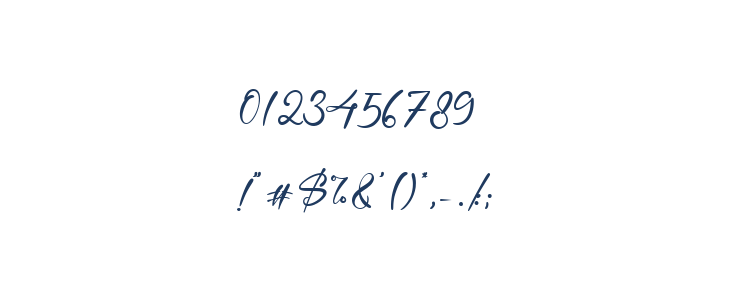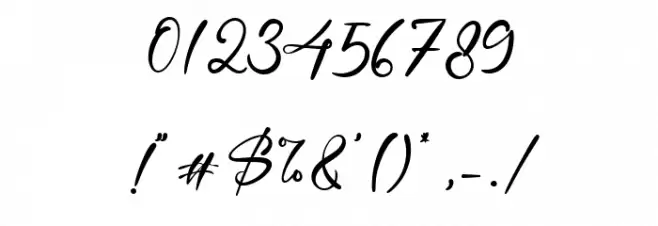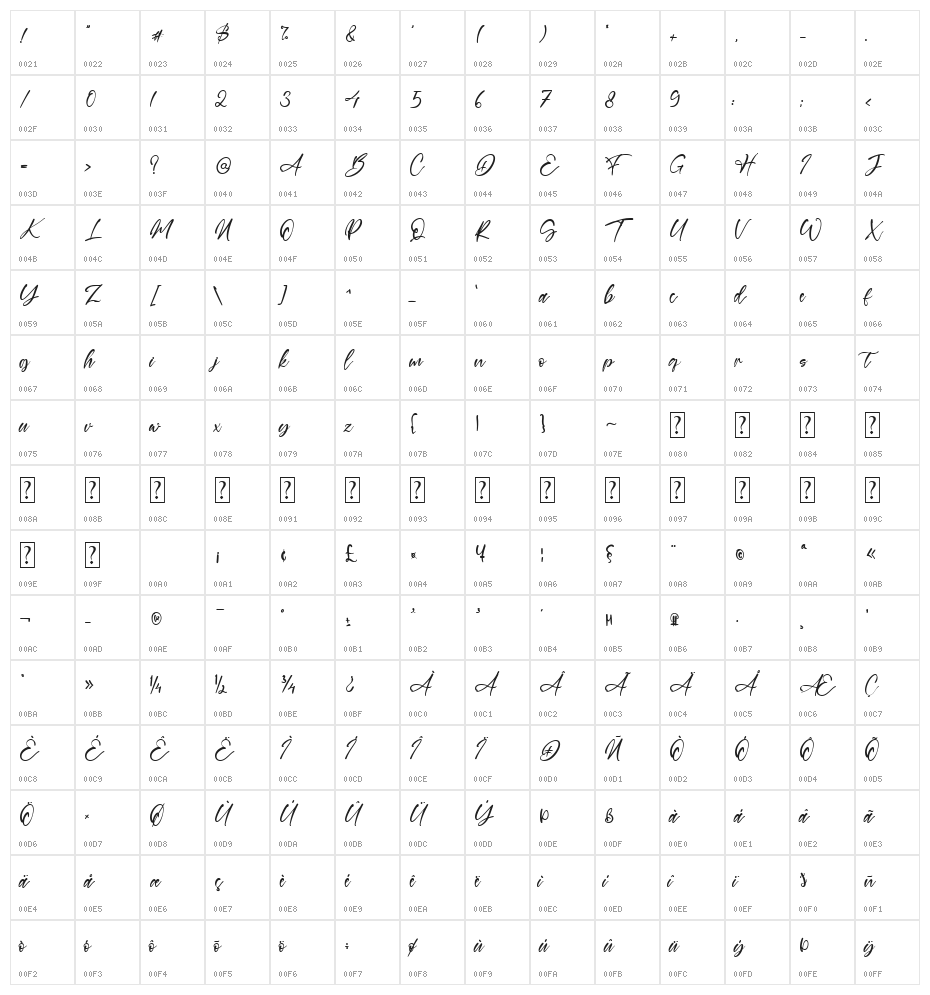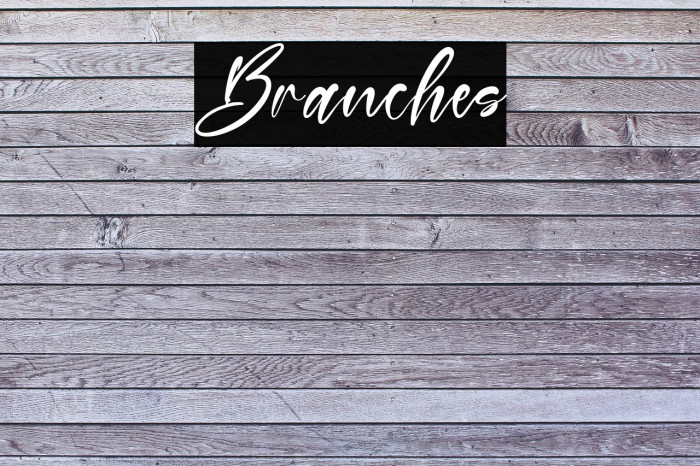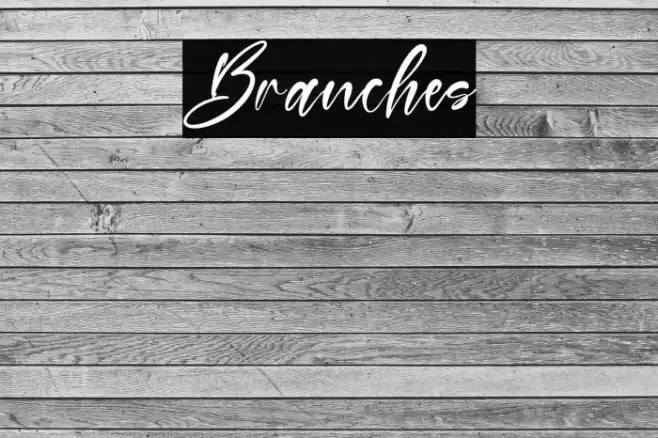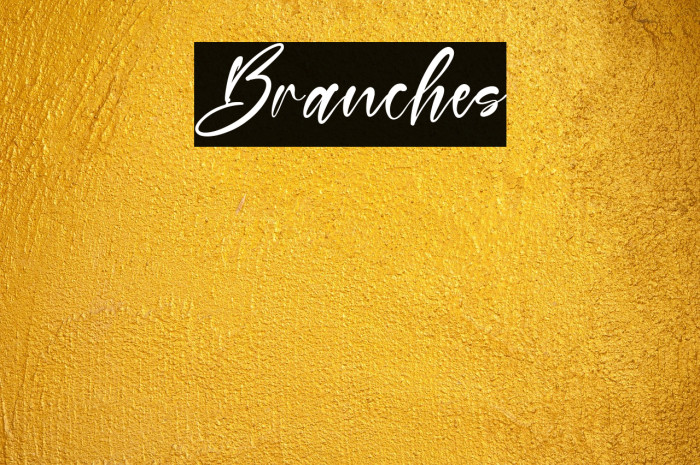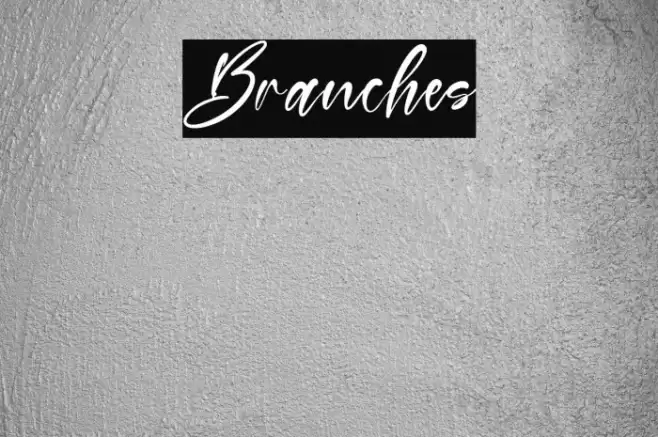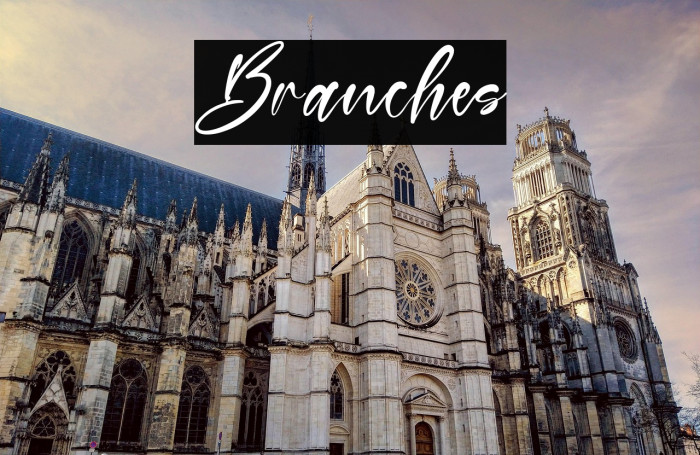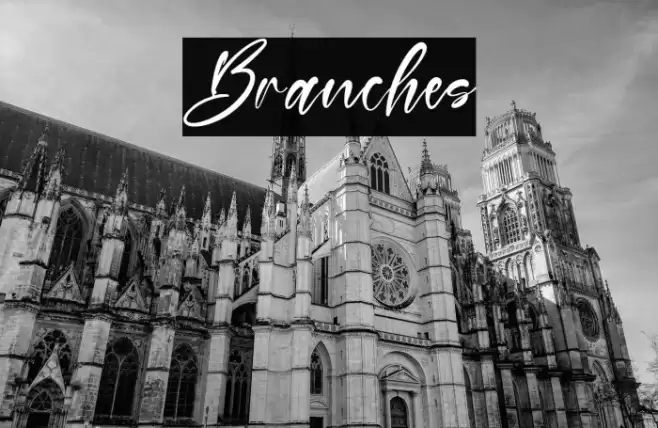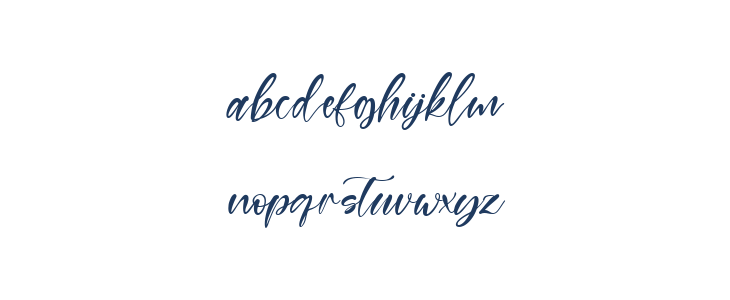
Branches Font
Branches Description
This font features a flowing, cursive style with elegant, sweeping strokes that give it a sophisticated and artistic appearance. The uppercase letters are bold and dynamic, with a slight slant that adds to the fluidity of the design. The lowercase letters maintain the same cursive style, with smooth connections between characters, enhancing the handwritten feel. The numerals are consistent with the overall style, featuring similar curves and flourishes. Special characters are well-integrated, maintaining the aesthetic of the font. This font exudes a sense of elegance and creativity, making it suitable for projects that require a personal touch.
| Overall Style | Elegant, Artistic |
| Proposed Projects | Ideal for wedding invitations, greeting cards, branding, and artistic projects. |